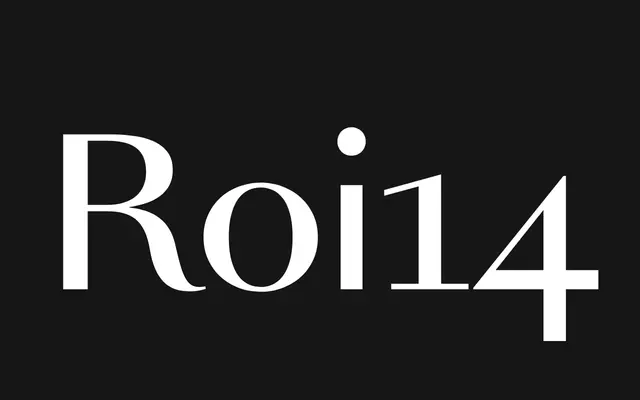
SunKing
Newglyph · Ian Party
A variable sans serif by Ian Party built on the structural logic of the Romain du Roi, Louis XIV's commissioned typeface of 1692.
Designed by Ian Party and published by Newglyph, SunKing translates the grid-based precision of the Romain du Roi into a contemporary sans serif with a variable weight axis spanning nine static styles. The design is not a revival but a reinterpretation, drawing on surviving specimens to inform proportions and construction without reproducing serifs or period details. With 426 glyphs per style and broad Latin Extended language support, it suits editorial and branding work that calls for historic gravitas in a modern form.
SunKing is a sans serif built on the structural principles of the Romain du Roi, a historically constructed Roman type. Its grid-based construction and precision place it in the rational or constructed sans tradition, distinct from humanist or grotesque approaches.